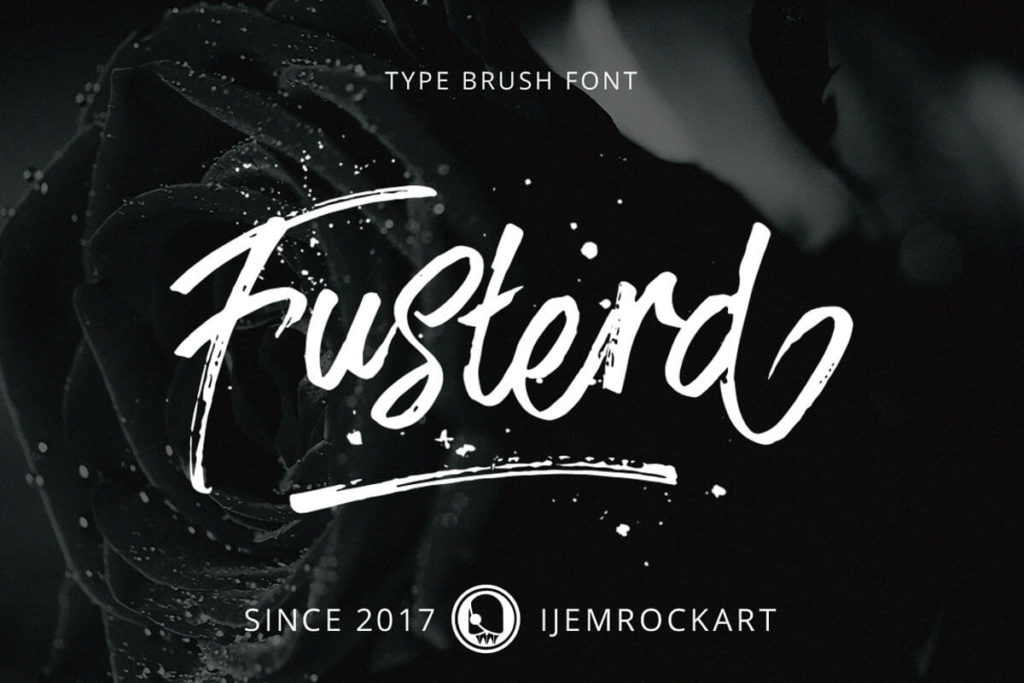
Free Fusterd Brush Typeface
Fusterd Brush Typeface by Ferdiansyah "Ijemrockart" is a stylish contemporary brush font you’ve been looking for, Its unique flow and style makes it perfect to use for prints, logos, quotes, badges, labels, packaging design, blog, websites, designs, headlines, banners, posters, printings, T-shirts, magazines, etc.